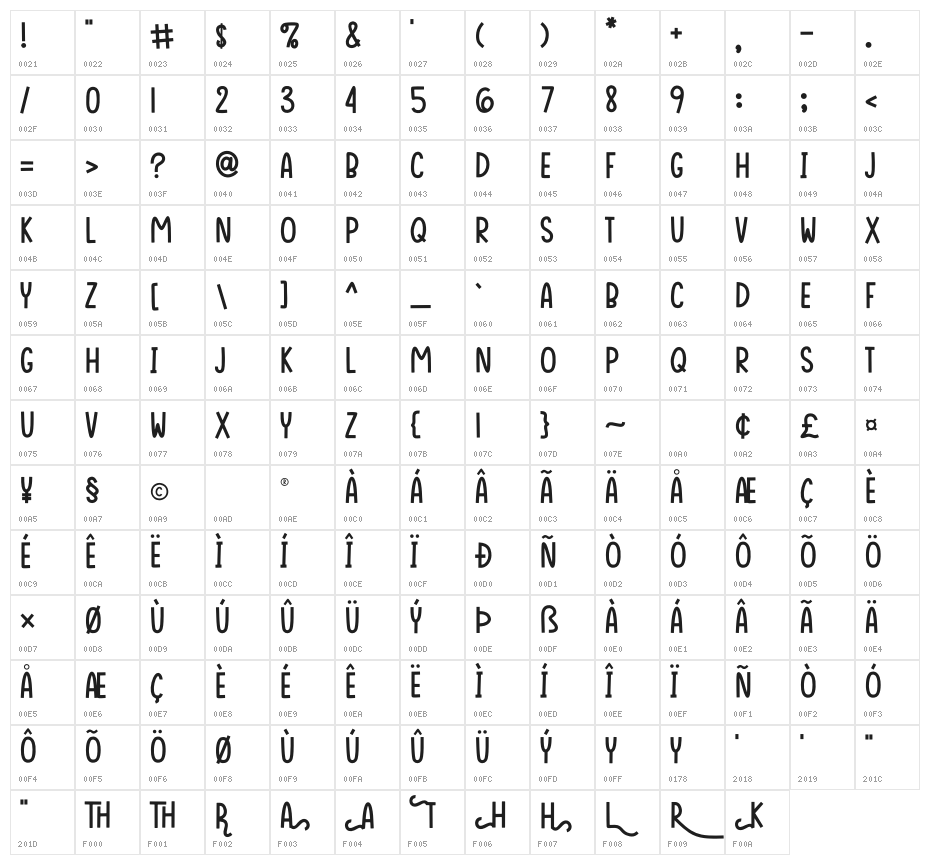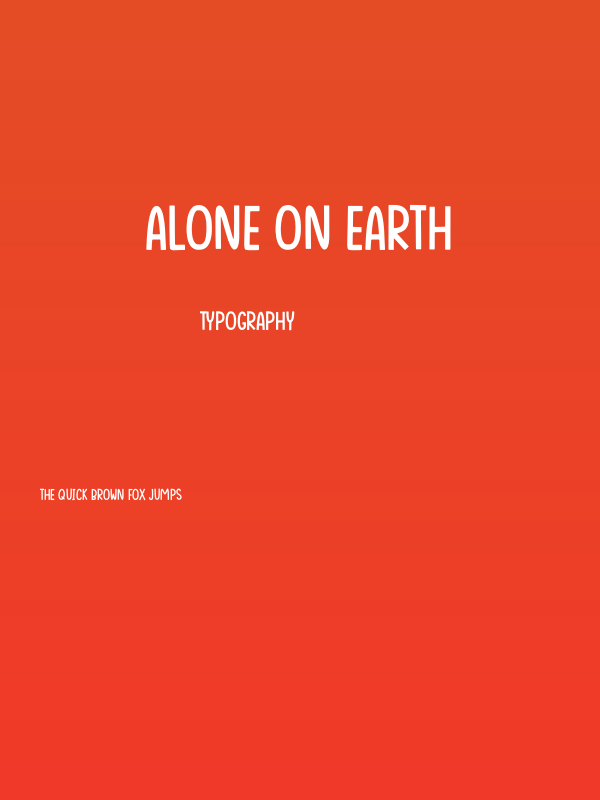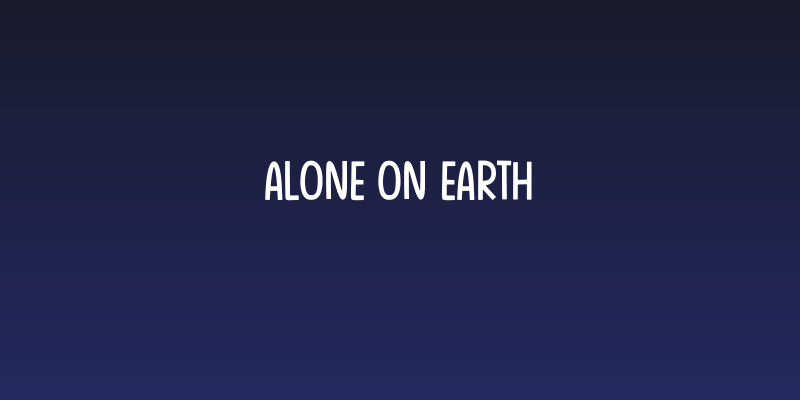
Alone On Earth Font
Alone On Earth Description
This font features a playful and informal style, characterized by its bold and rounded letterforms. The uppercase and lowercase letters maintain a consistent height, giving it a uniform appearance. The strokes are thick and even, providing a strong visual presence. The characters have a slightly hand-drawn quality, adding a touch of whimsy and personality. The numbers and special characters follow the same design principles, ensuring cohesion across all elements. This font is highly legible and versatile, suitable for a variety of creative projects.
| Proposed Projects | Ideal for children's books, posters, greeting cards, and playful branding. |